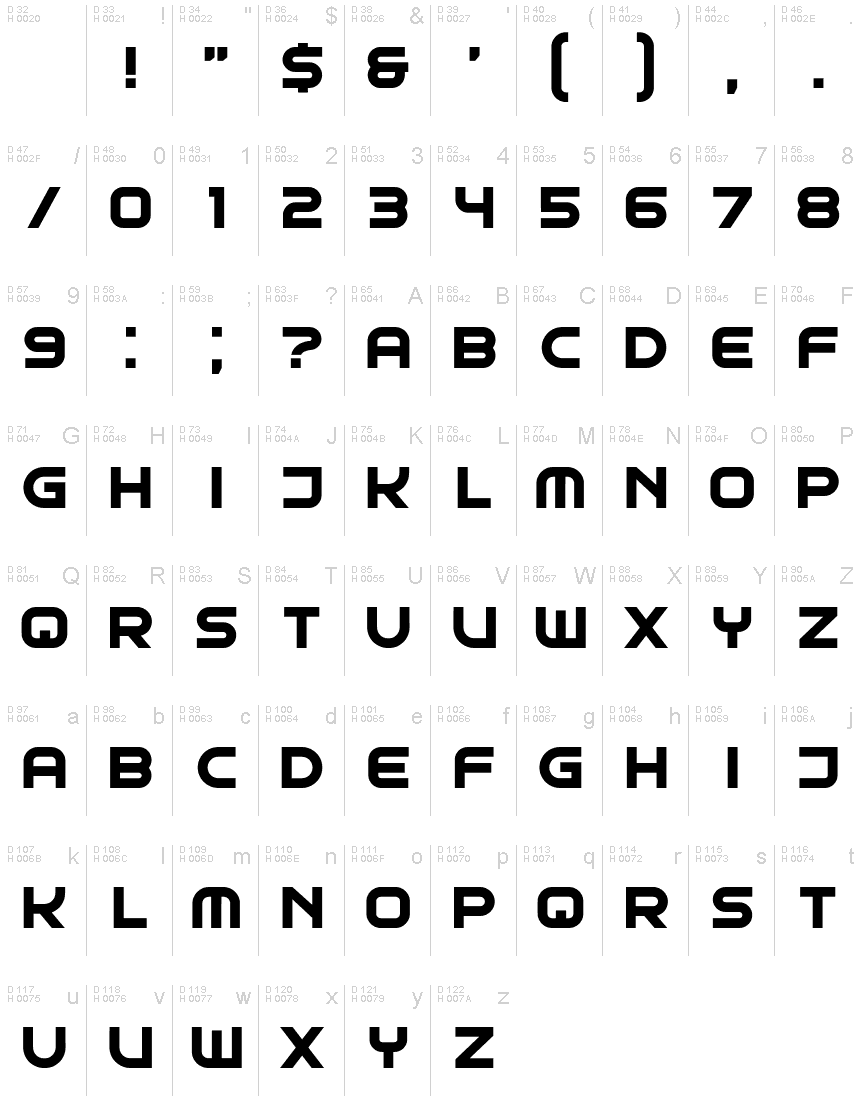
Enfolding Regular
Enfolding, the exceptional creation of Vladimir Nikolic, is a versatile and captivating sans serif font that's perfect for both digital and print projects. Its semi-bold weight and expanded width make it ideal for headings, titles, logos, and designs that require a commanding presence. Enfolding's clean lines give it a modern look while its unique shape adds an artistic flair to any project. Use Enfolding to create striking branding materials for your business or to elevate your website design with its eye-catching style. With this font, the possibilities are endless!